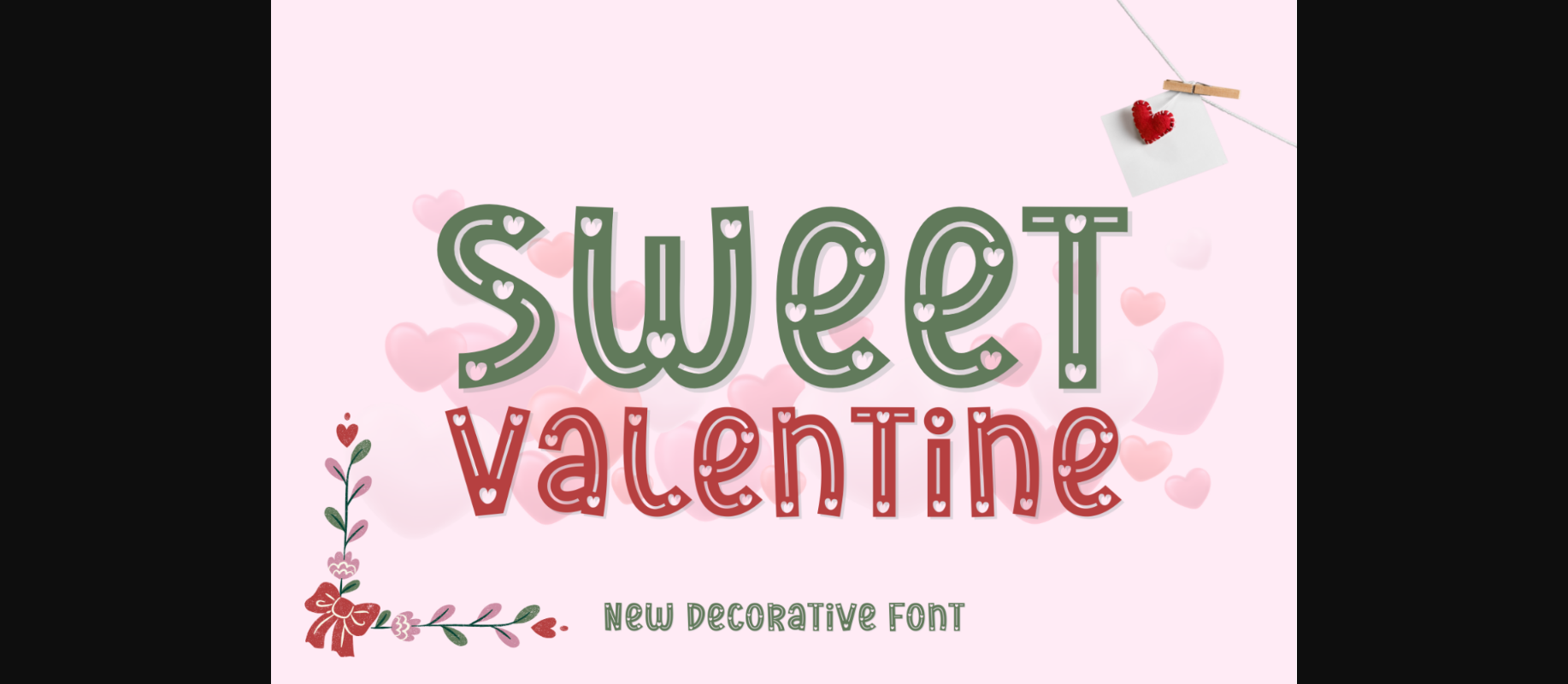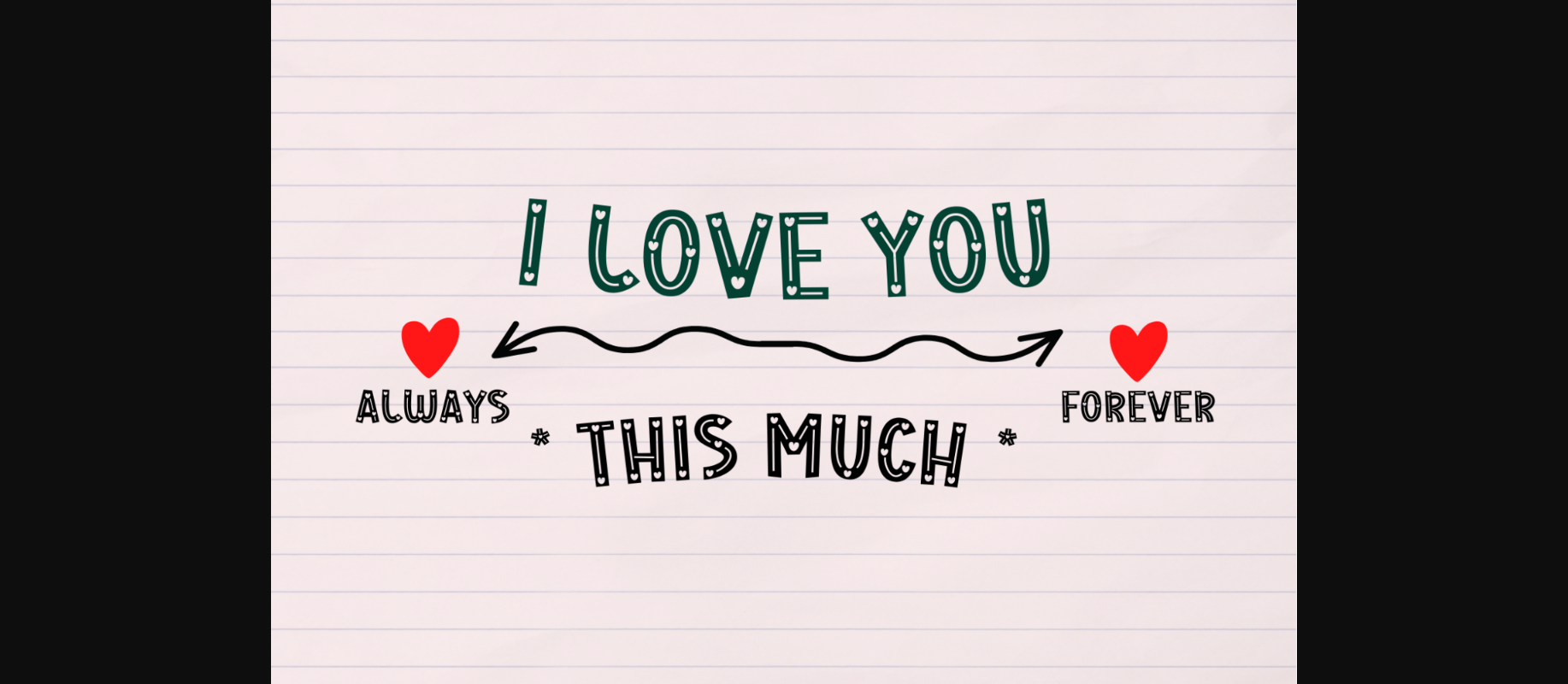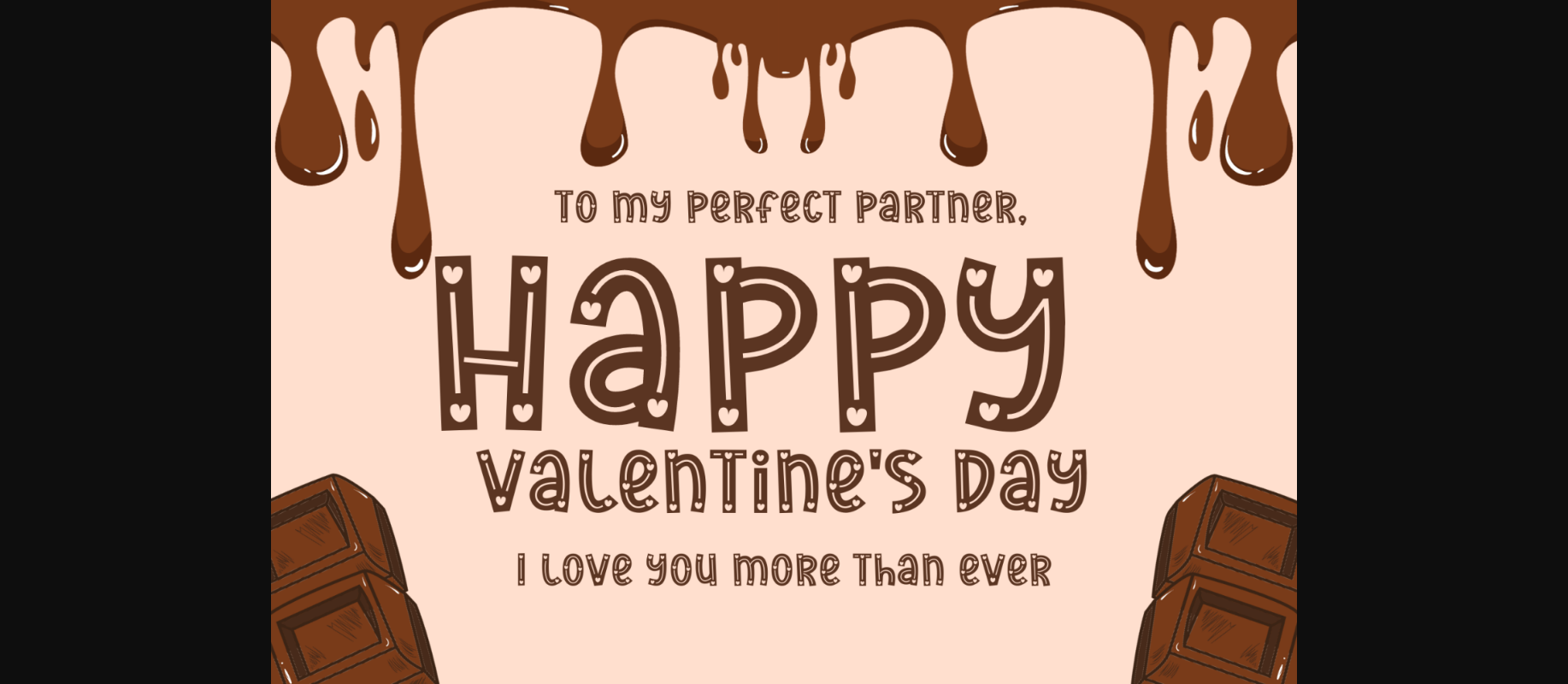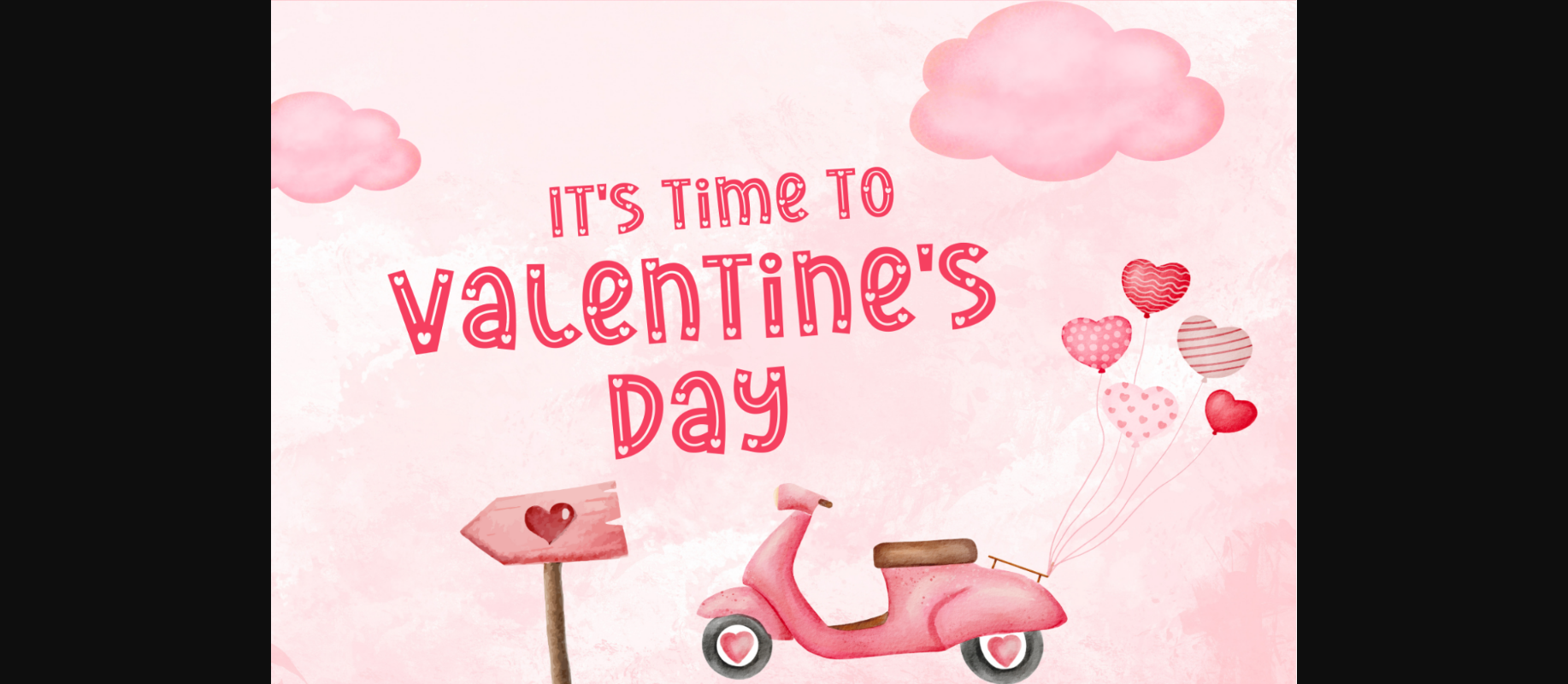
Sweet Valentine Font
About Sweet Valentine Font
Sweet Valentine is a delightful handwritten font, crafted with love and adorned with charming little hearts nestled within each letter. This endearing typeface adds a touch of warmth and romance to your projects, making it perfect for sweet messages, love notes, and heartfelt designs. Embrace the whimsical charm of Sweet Valentine and let your words dance with a playful and affectionate flair.